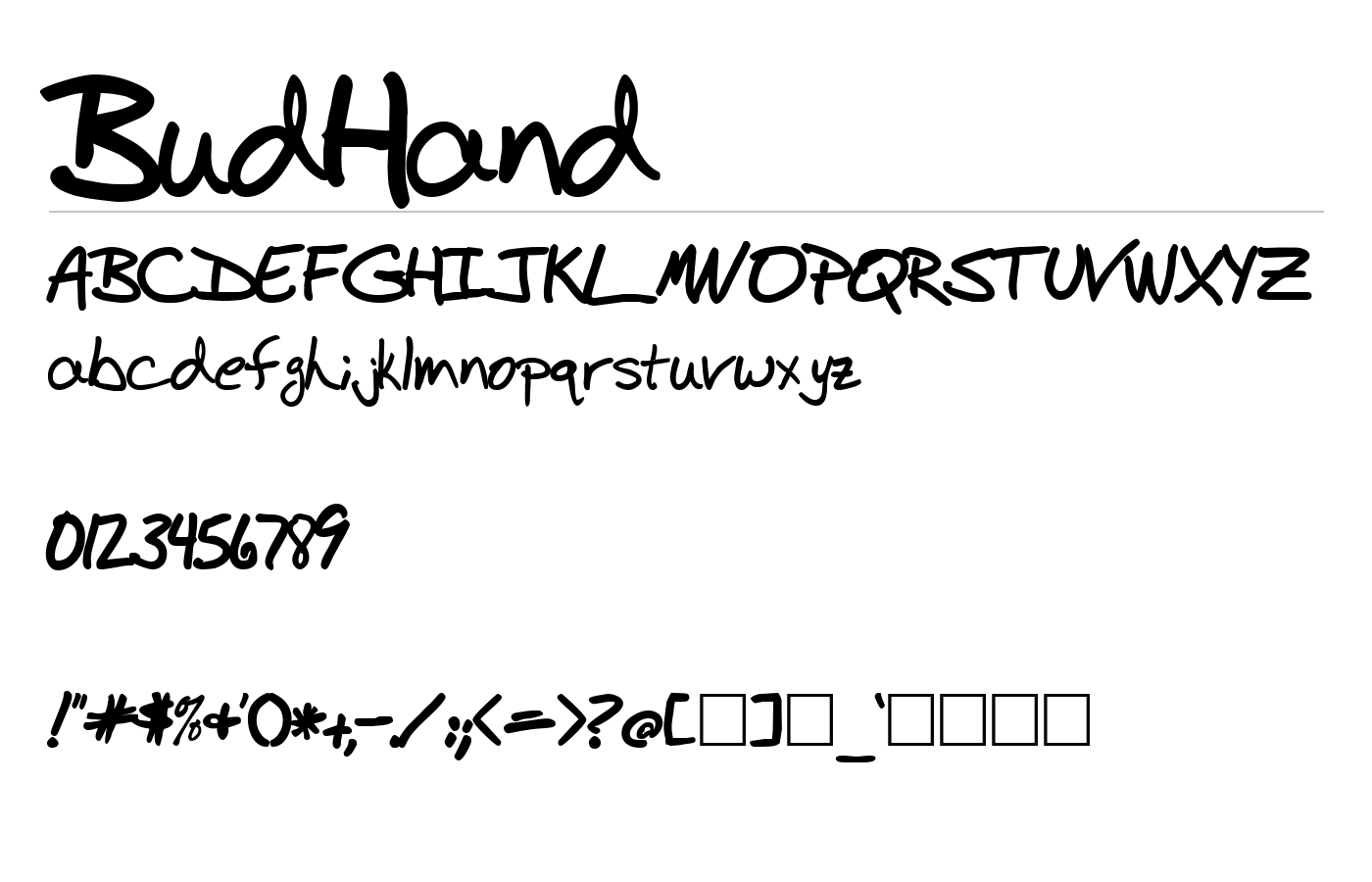
BudHand is a playful, casual handwritten font with an informal and friendly vibe. Its slightly uneven strokes and varied letter sizes give it a natural, human touch, making it perfect for personal projects, creative branding, and youthful designs that aim to feel approachable and warm. This font shines in headlines, packaging, and invitations where a relaxed and expressive style is desired.
BudHand Font